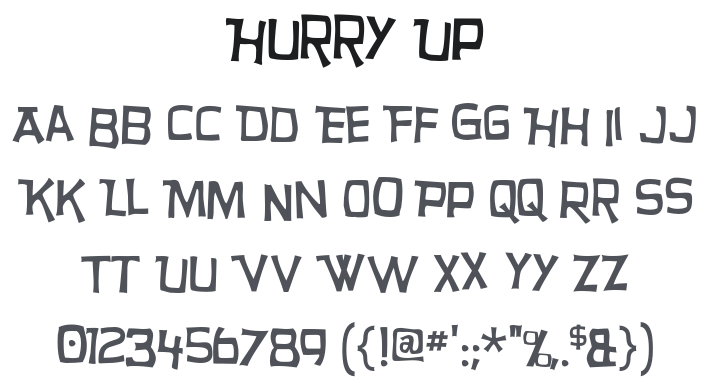
Hurry Up Font
About Hurry Up
Hurry Up is a quotidian, buoyant cartoon display typeface straight out of 1960s comic culture — its bizarre, rounded letterforms bounce with an infectious, carefree energy that feels simultaneously familiar and wonderfully odd. The cheerful quirkiness gives every word an immediate animated personality. Perfect for children's media, retro comic designs, novelty branding, playful posters, and any headline that needs a light-hearted, laugh-inducing charm.